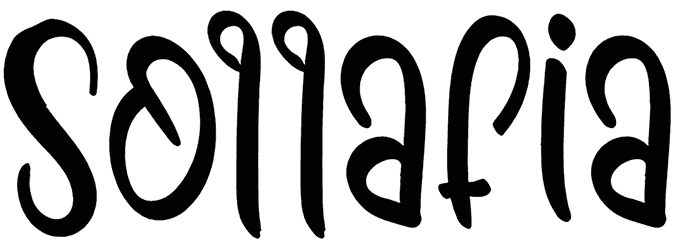
Sollafia Font
If you want a font that can turn any simple project into decorative text without any extra embellishments, Sollafia can surpass its competitors in this field.
This handwritten font is a versatile tool that makes you feel comfortable with any project. So if you need a clean-looking font for your wedding card design, fun festival poster, or children’s party banner, add Sollafia to your collection for the rainy day.